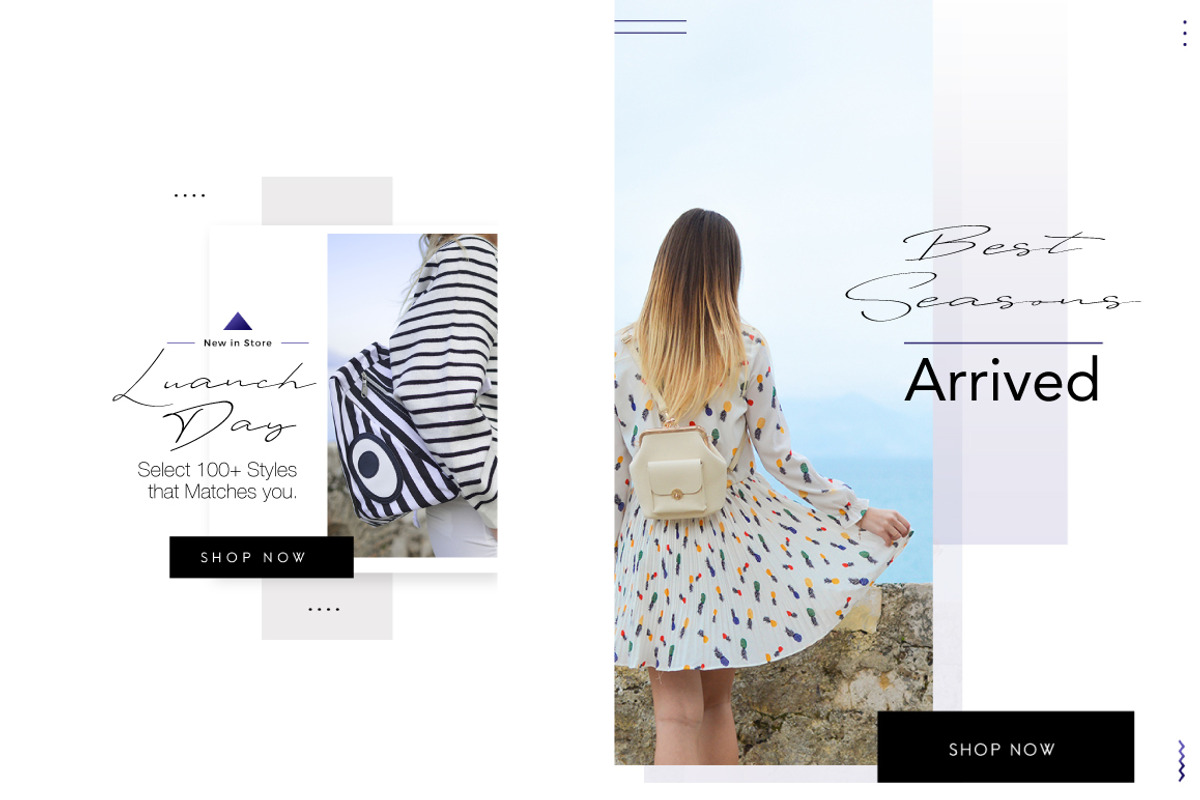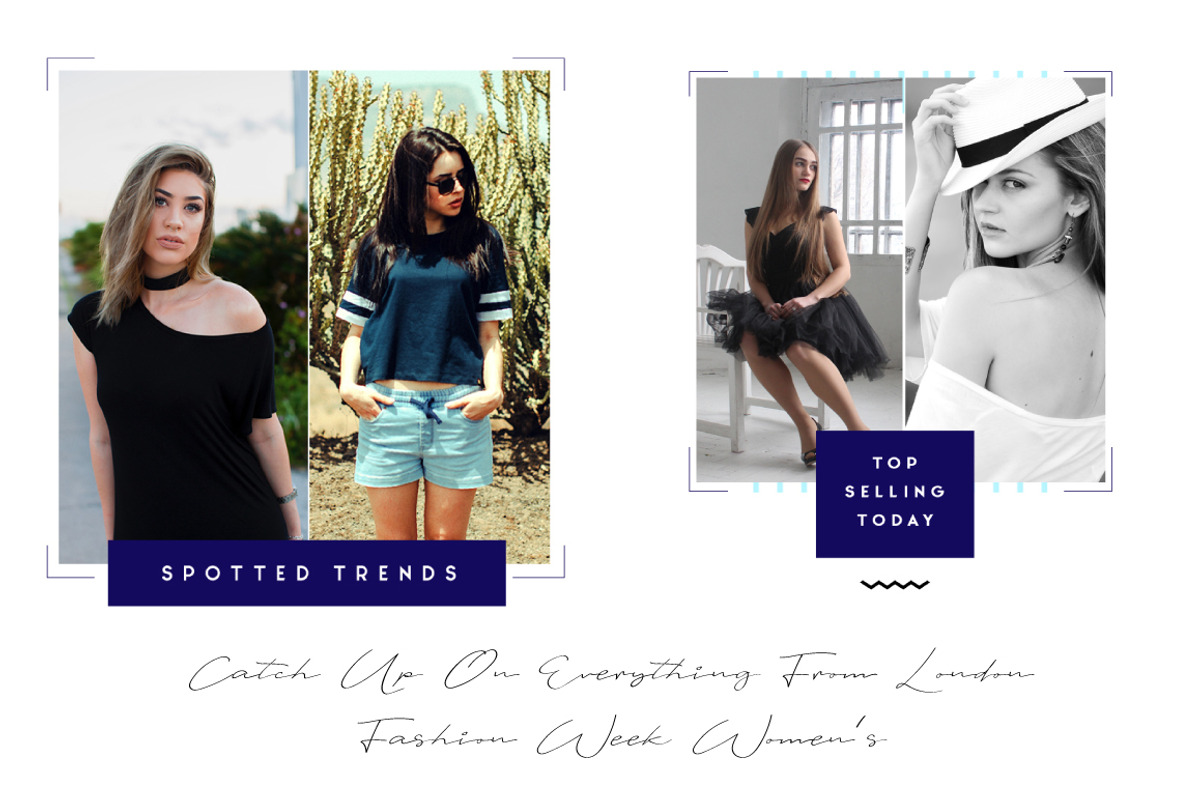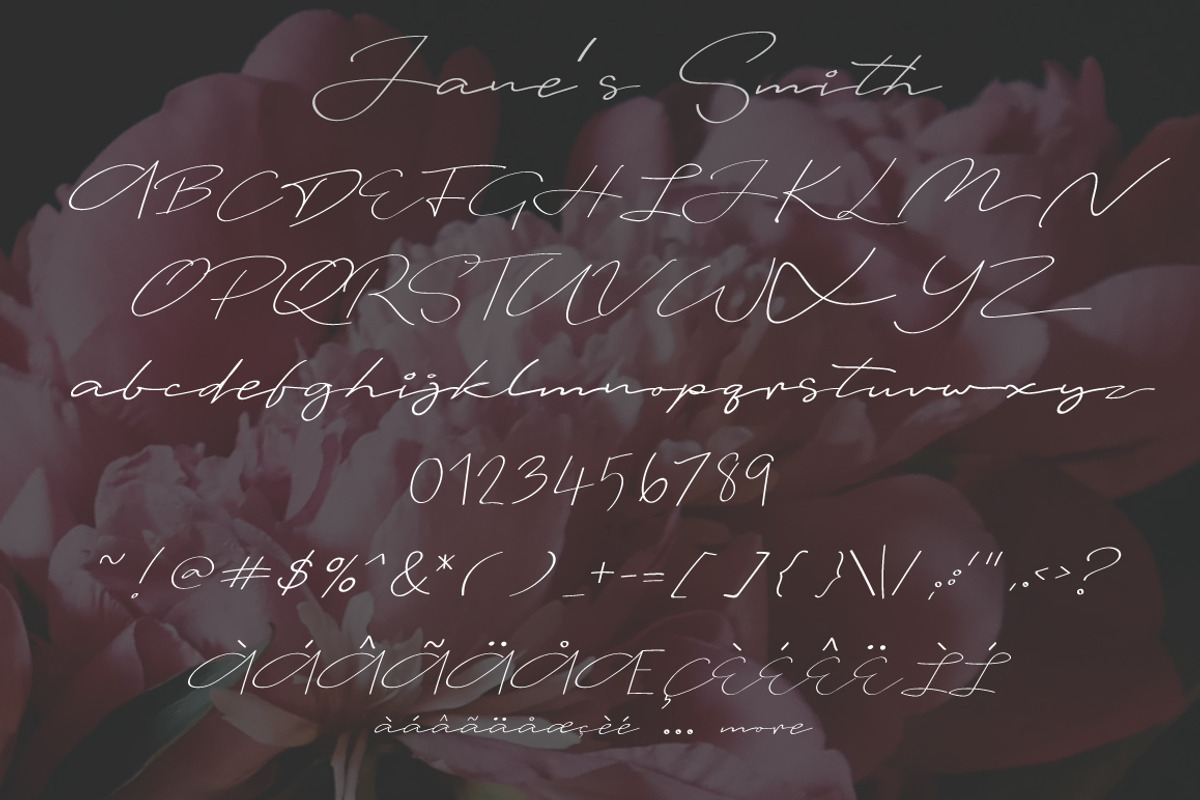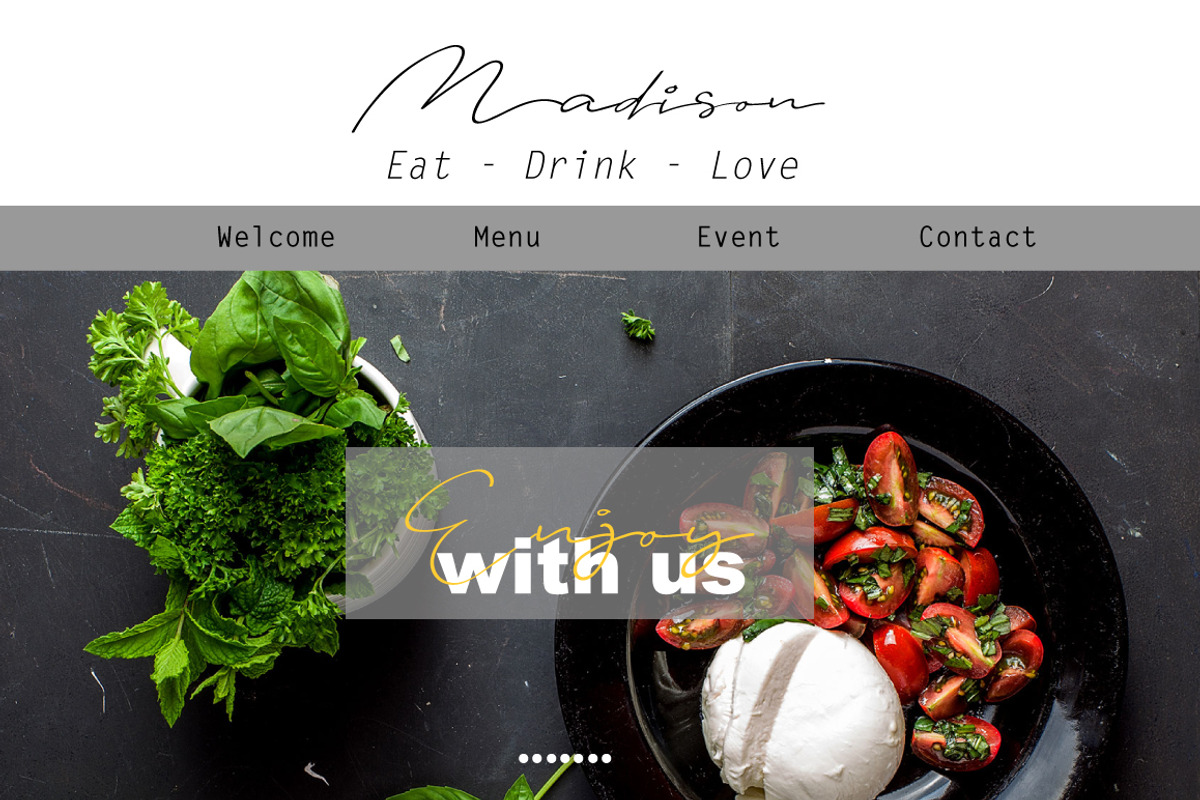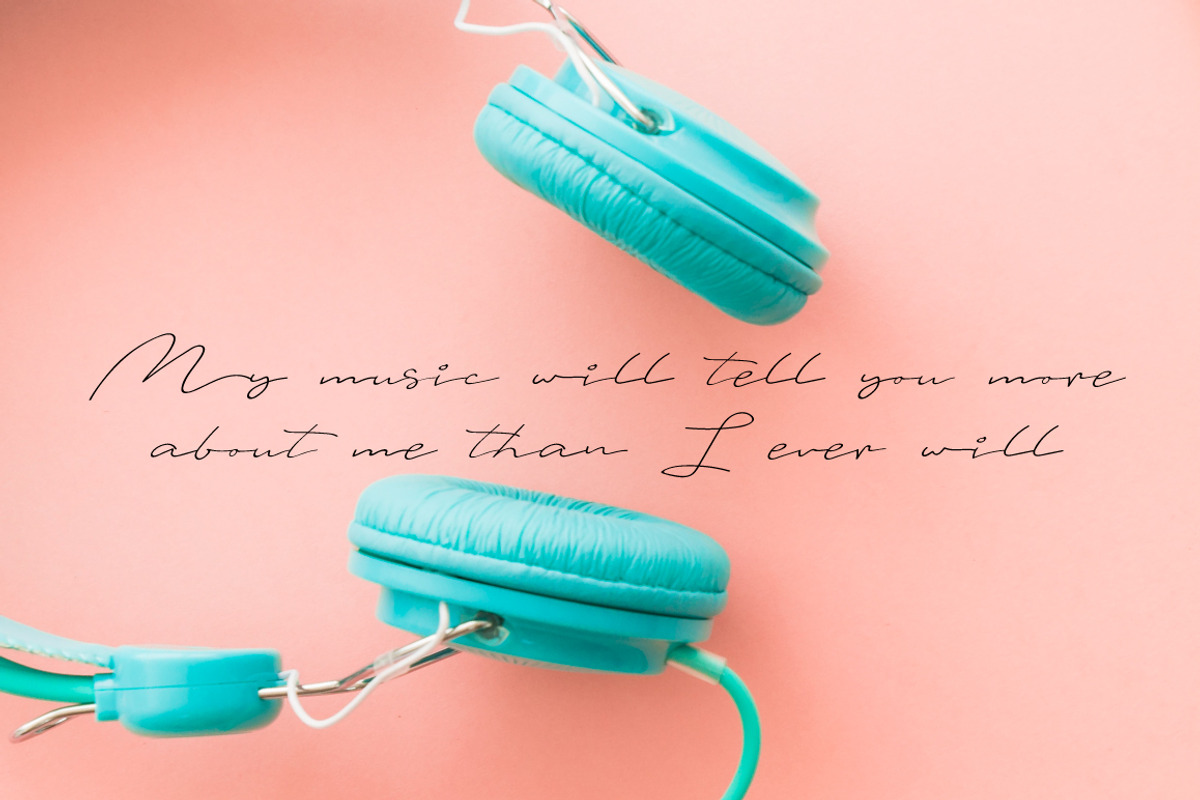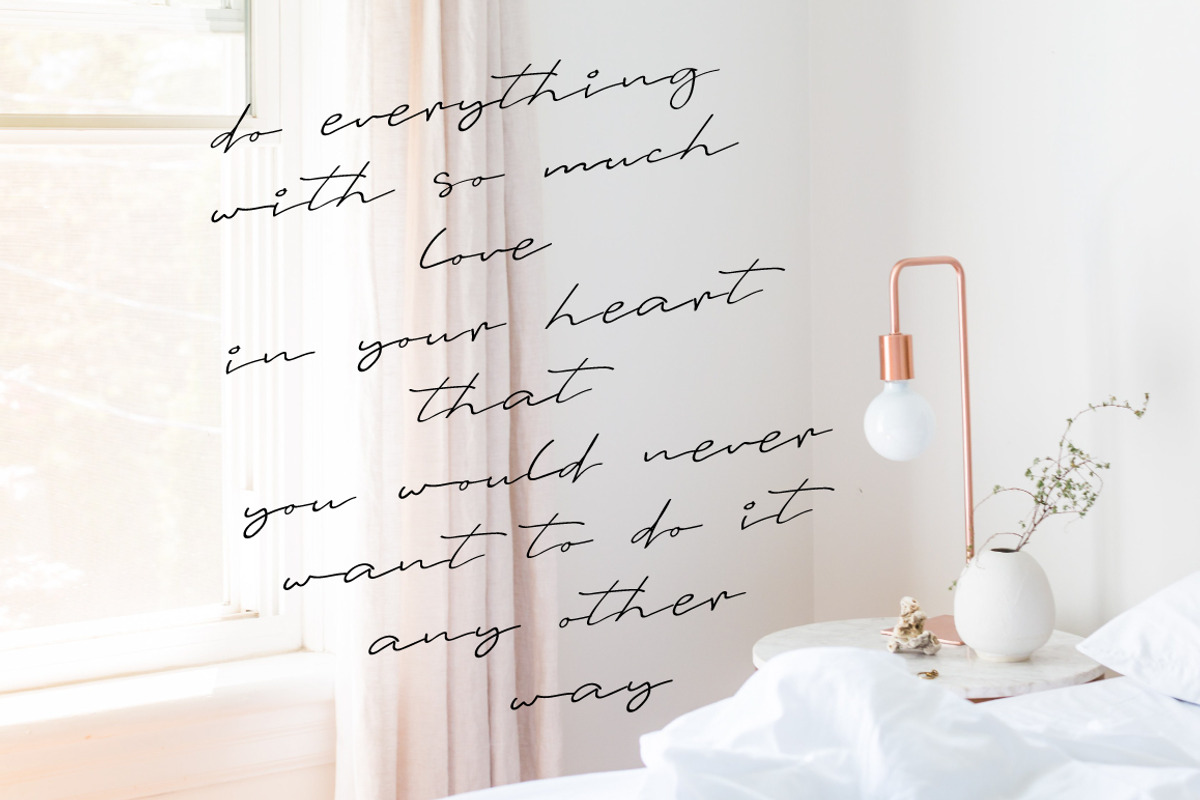
Janes Smith | Handwritten font
It is a signature font with a multitude of letter variations to make that perfect and unique design.
This font is perfect for wedding invitation or your blog. Also with their help, you can create a logo or beautiful frame for your home. Or just use for your small business, book covers, stationery and more.
Janes Smith | Handwritten font by Artstudio fits naturally into Branding, posters, packaging, typography.